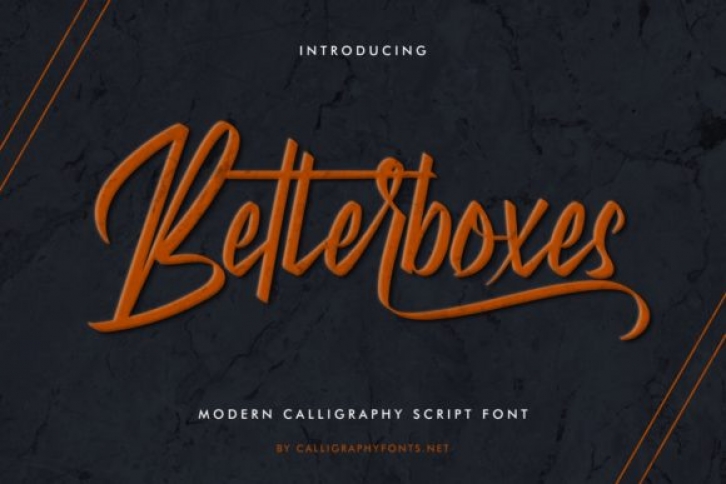
Betterboxes is a modern brush calligraphy font. This font reads as strong, confident, and dynamic and can add tons of nostalgic character to your designs.